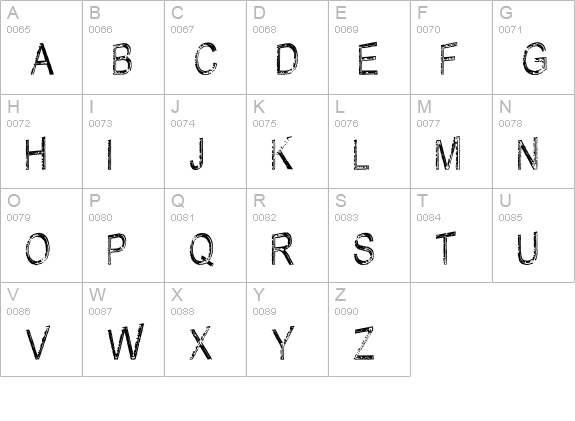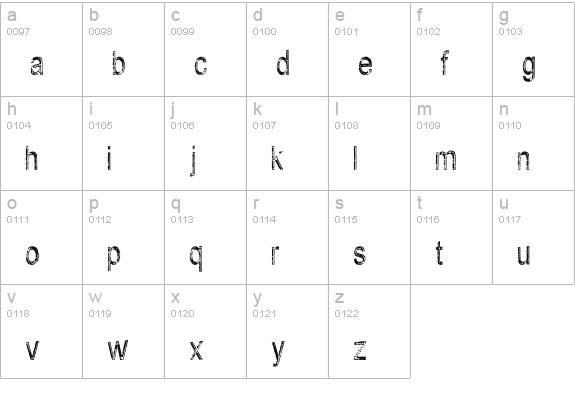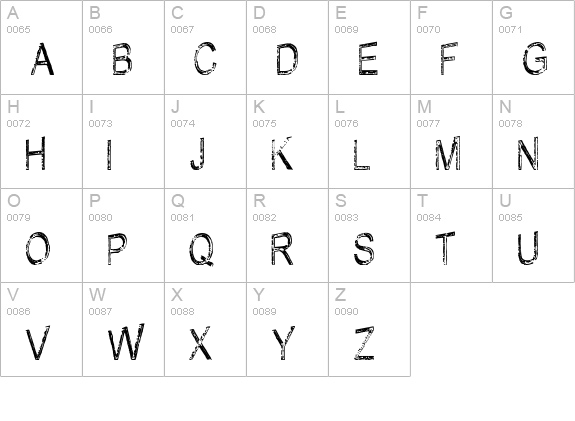
Rusty Sign Font Details
Introducing Rusty Sign font, a unique and eye-catching typeface that brings a touch of vintage charm to your designs. This font features rough edges and a distressed look, giving it a weathered and rustic appearance reminiscent of old signage. Perfect for adding a touch of nostalgia to your projects, Rusty Sign font is versatile and can be used for a variety of design purposes. Best of all, Rusty Sign font is completely free to download at FontsMarket.com. Whether you're working on a retro-inspired poster, a vintage logo, or any other creative project, this font is sure to add character and personality. Don't miss out on this fantastic font - download Rusty Sign today and start creating stunning designs that stand out from the crowd.